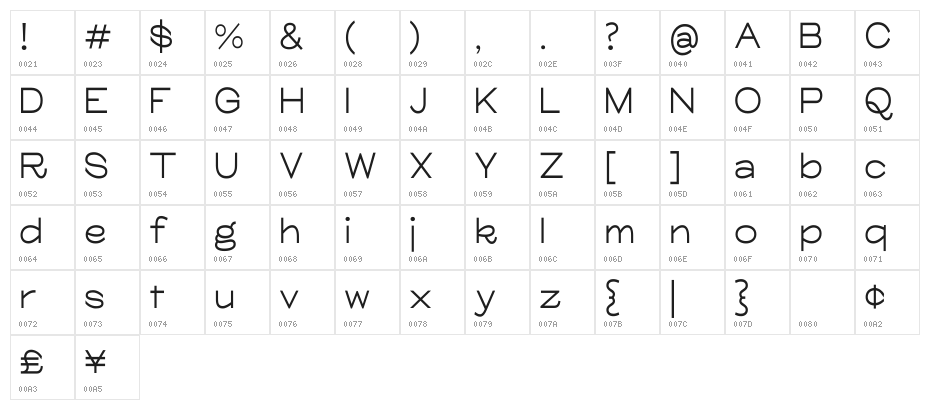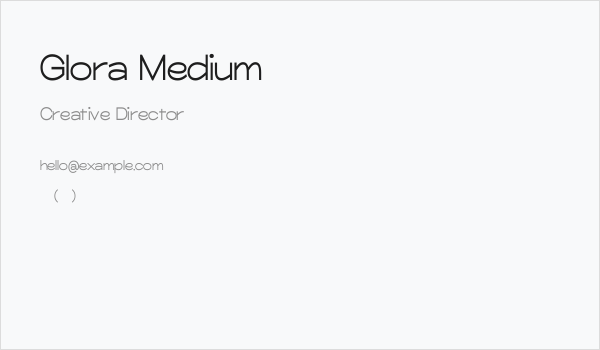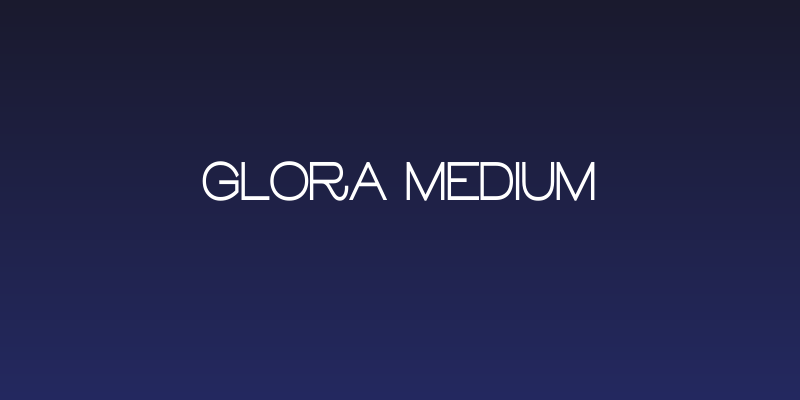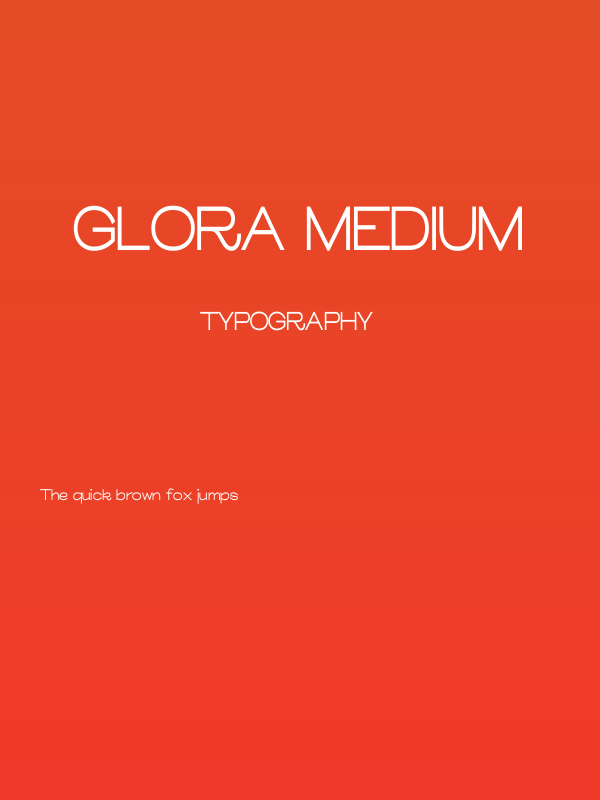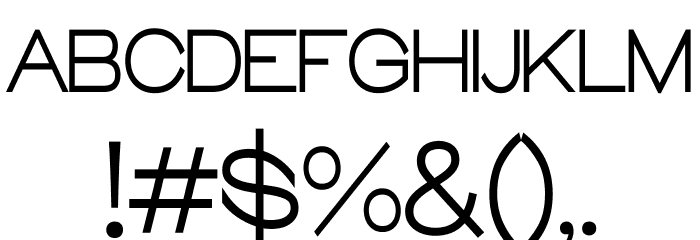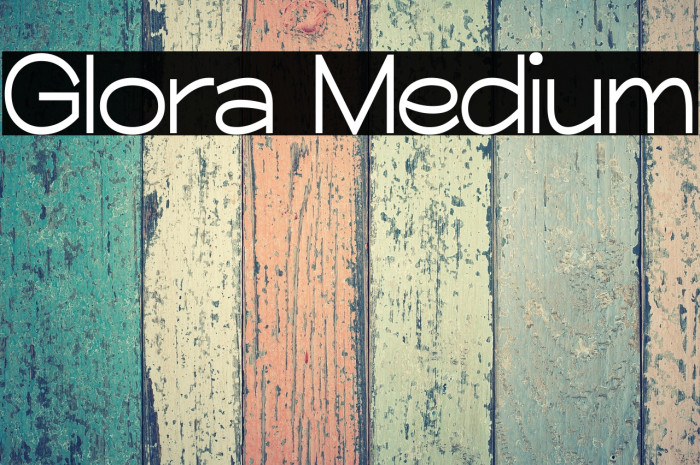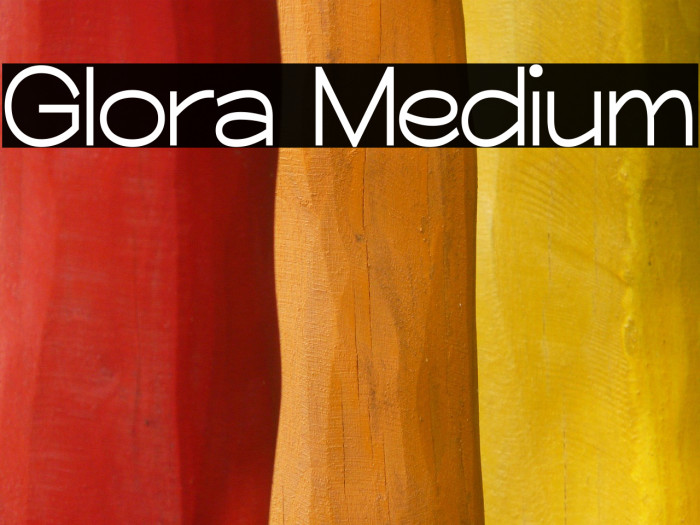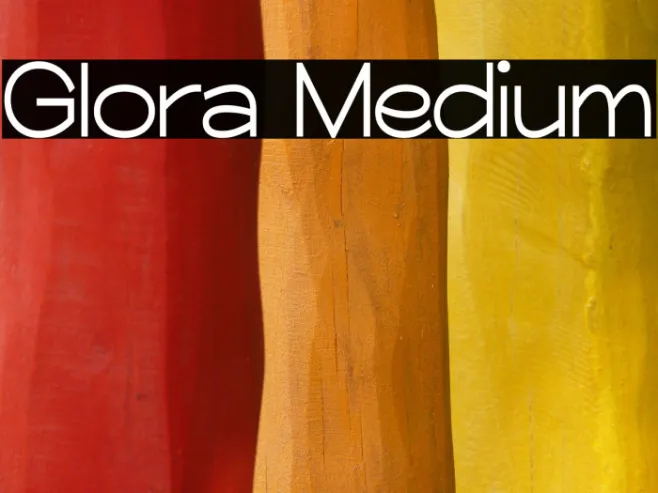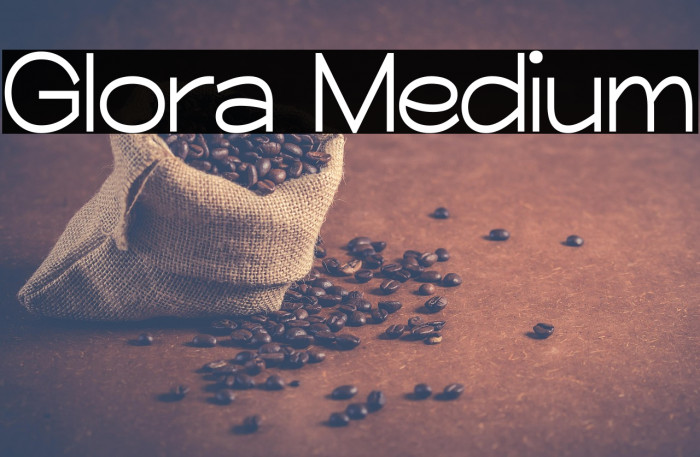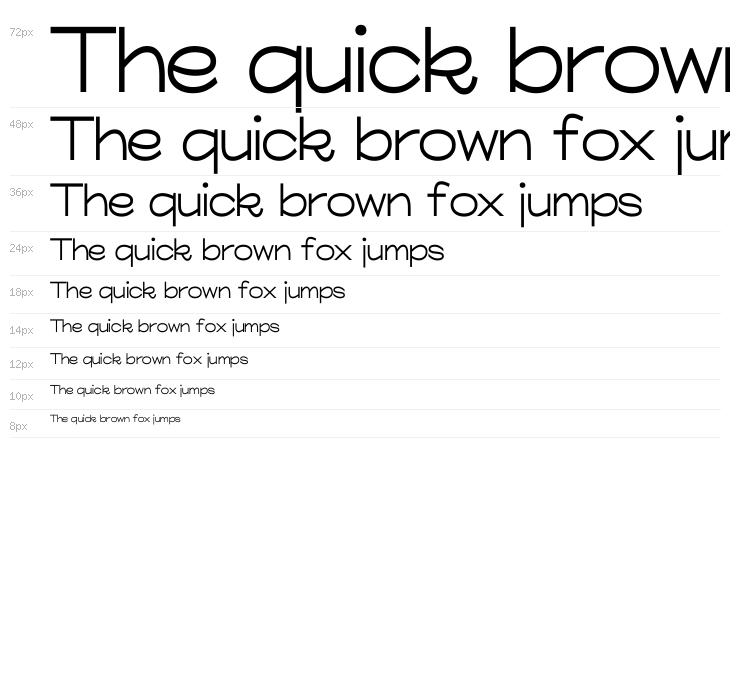
Glora Medium Font
Glora Medium Description
This font features a clean and modern sans-serif style with a geometric structure. The characters are well-balanced, offering a harmonious blend of curves and straight lines. Uppercase letters are bold and assertive, while lowercase letters maintain a smooth and approachable appearance. The font includes a full set of numerals and a variety of special characters, making it versatile for different design needs. Its uniform stroke width and minimal contrast give it a sleek and contemporary look, ideal for modern branding and digital applications.